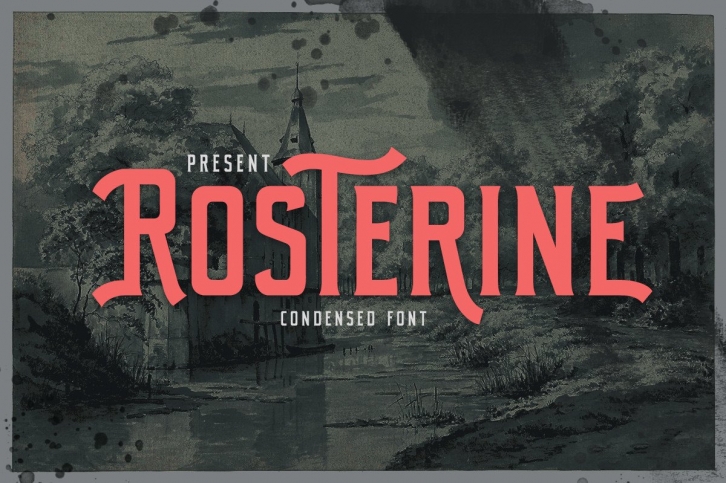
Rosterine is a cool, vintage styled display font. No matter the topic, this font will be an incredibly asset to your fonts’ library, as it has the potential to elevate any creation.Â